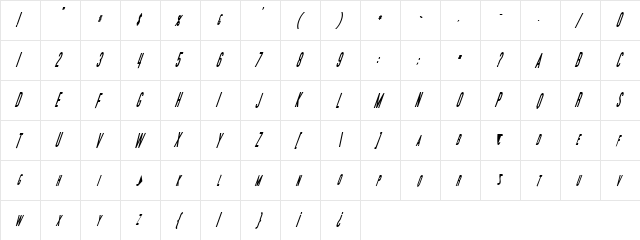
Movie Poster Condensed BoldItalic Font Preview
Design Context for Movie Poster Condensed Typeface
Movie Poster Condensed is a composed and adaptable typeface that performs quietly and consistently across a wide range of design contexts. The dynamic lean of this cut emphasises speed and emphasis in any layout. The heavy weight commands attention and anchors typographic hierarchies. The condensed width makes it efficient for tight spaces without sacrificing legibility.